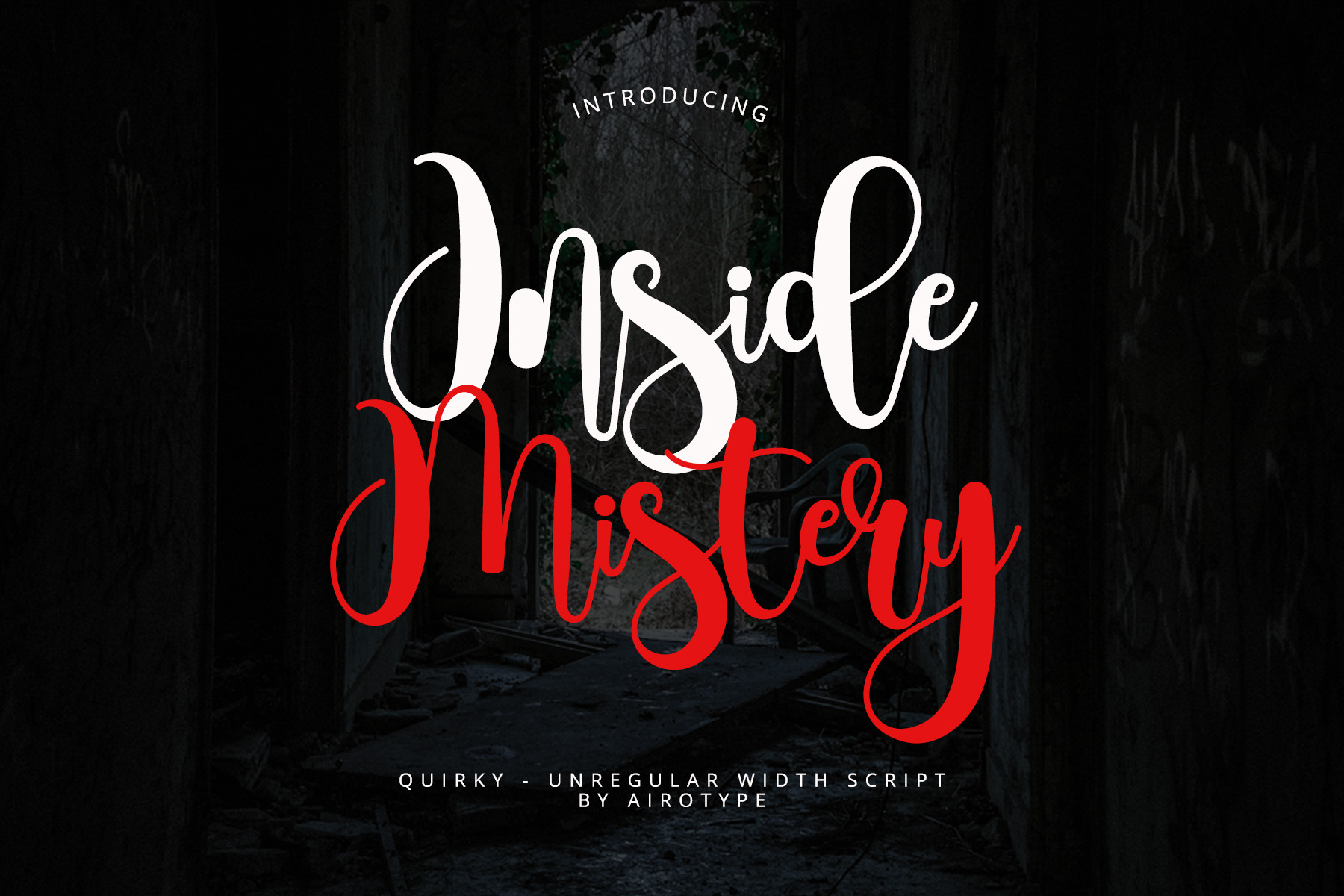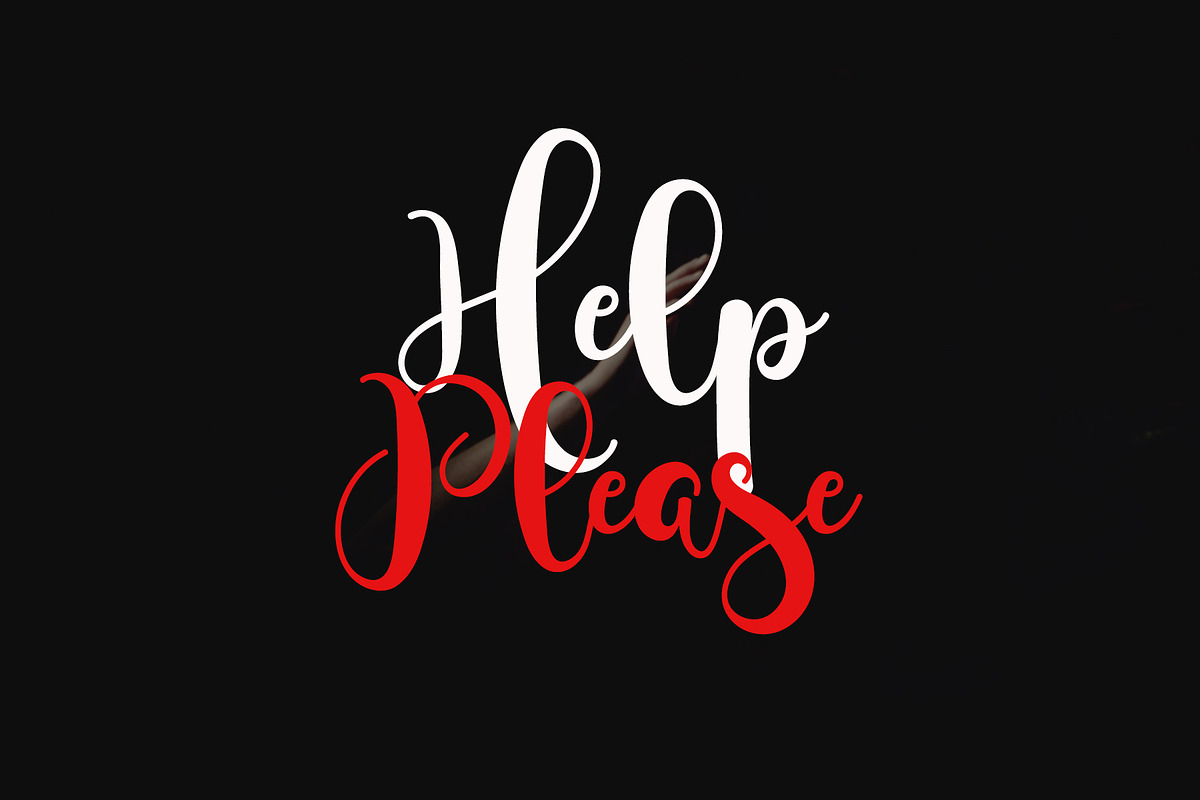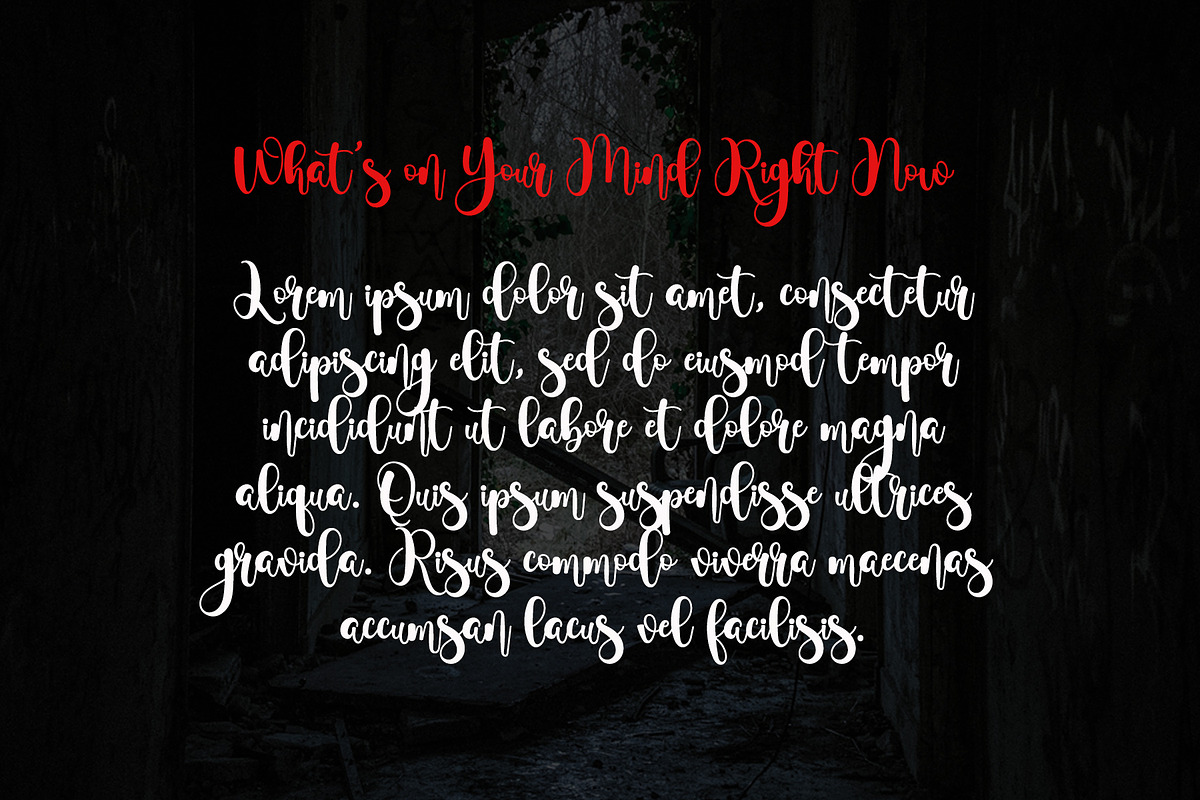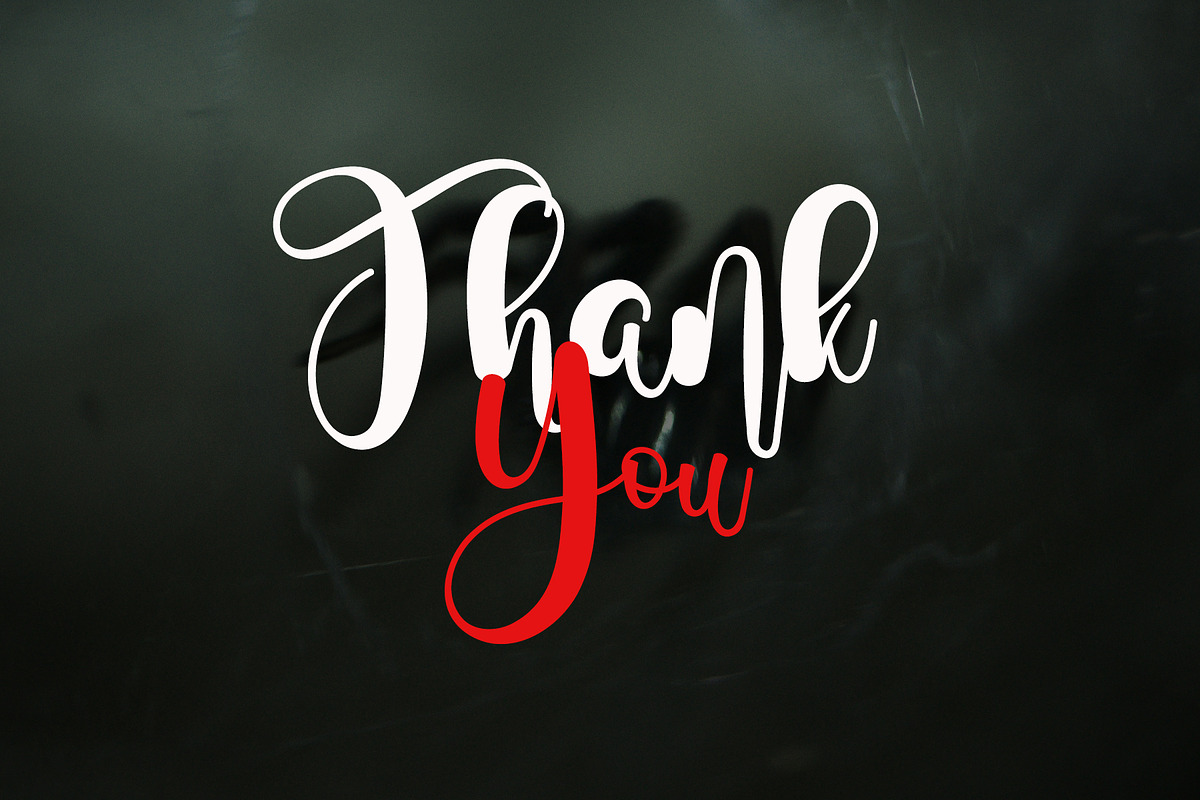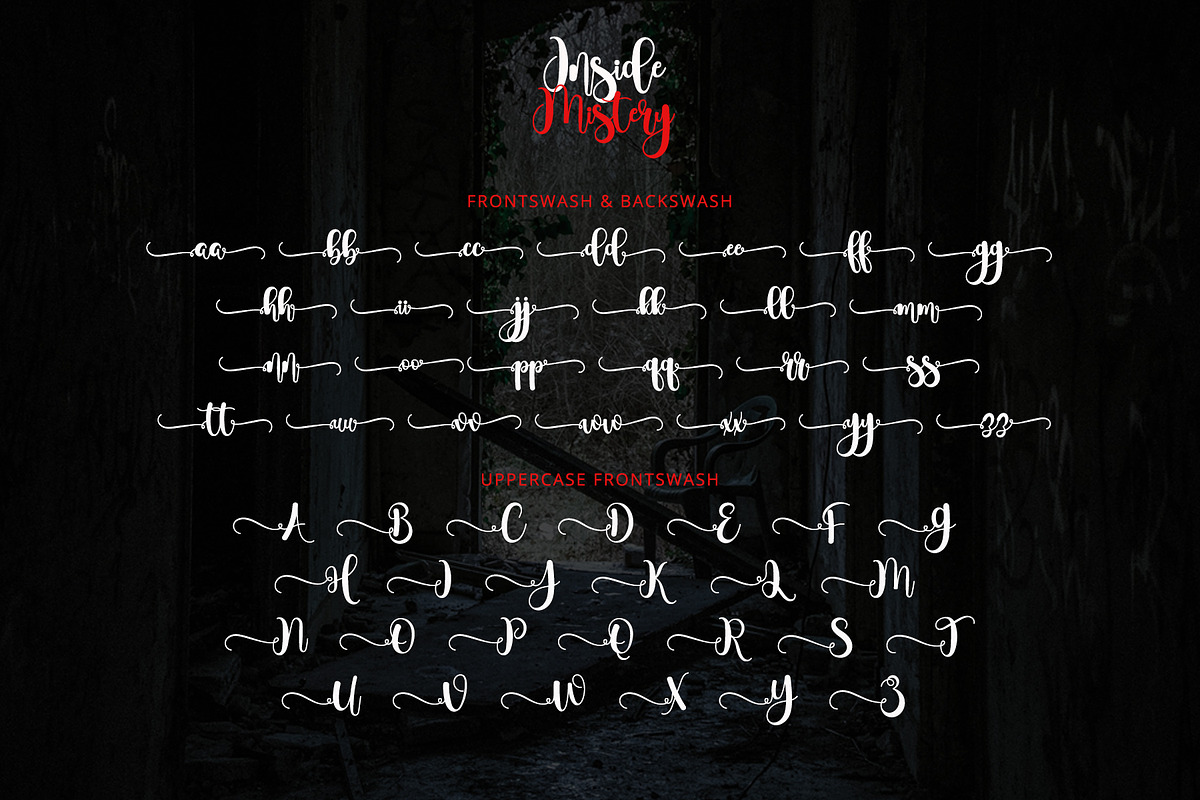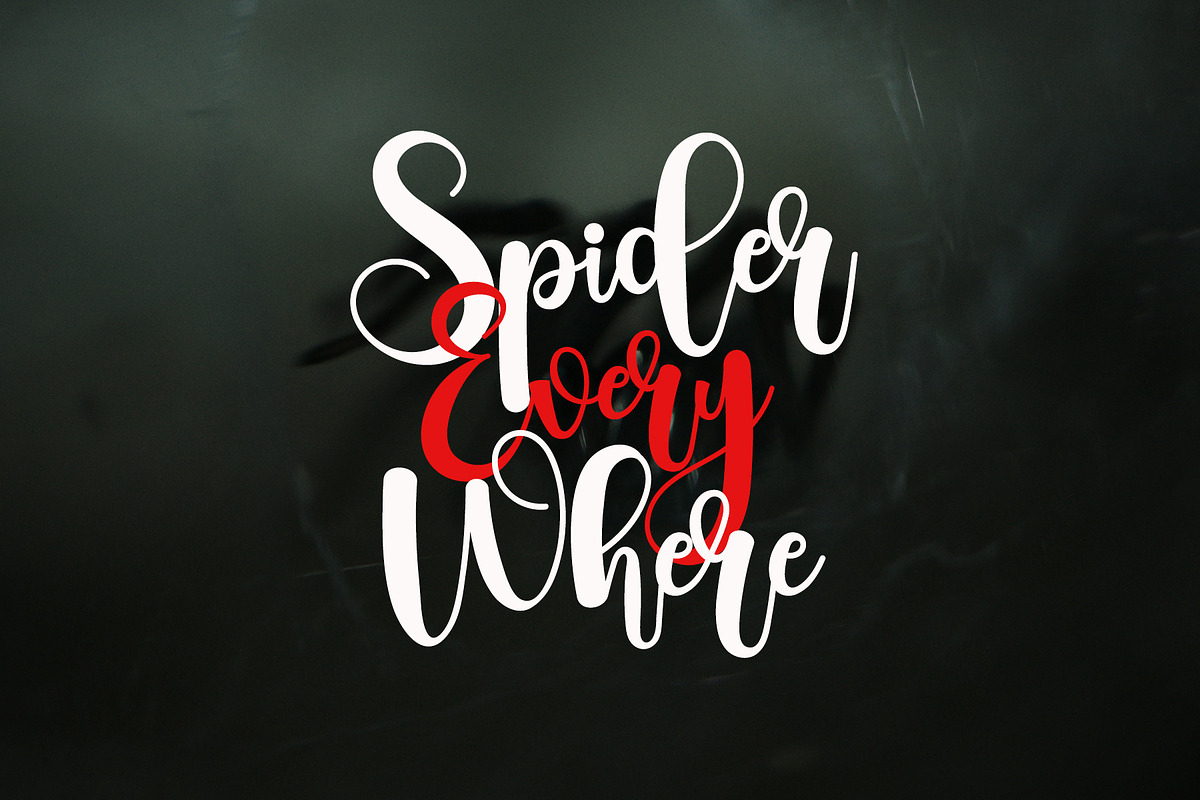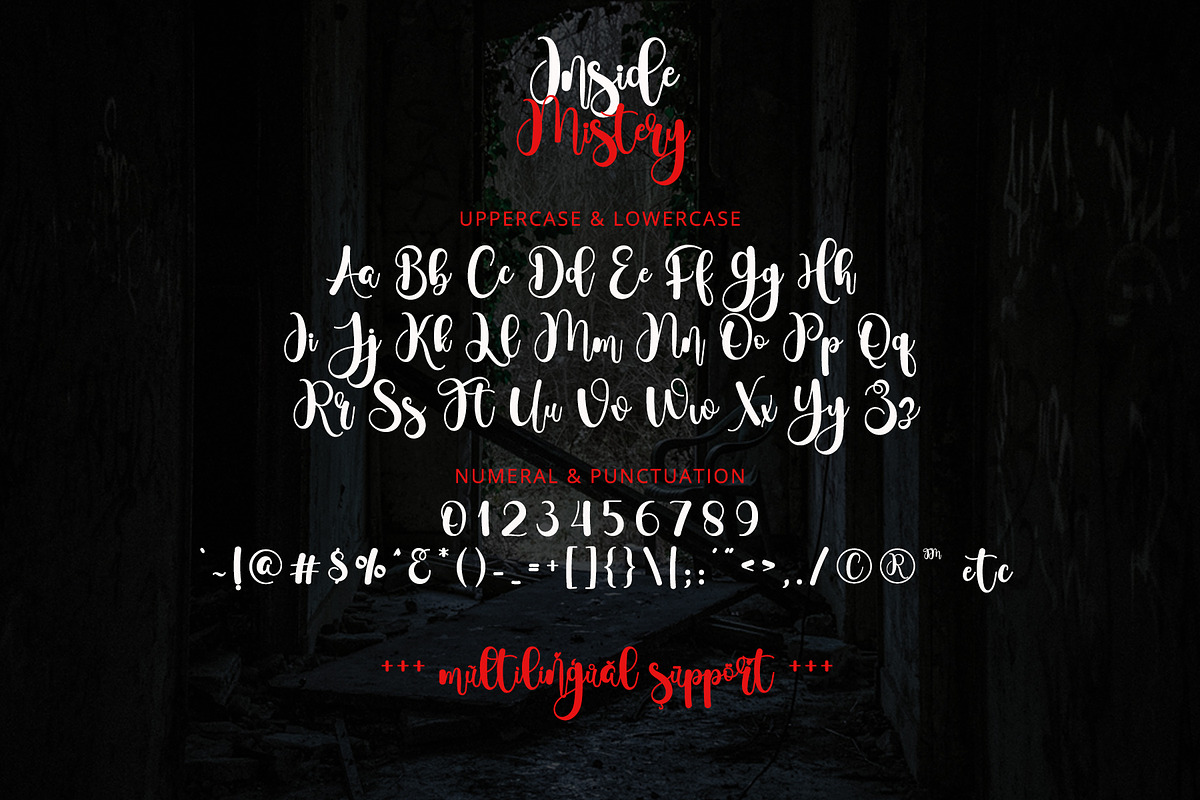
Inside Mistery - Spooky Cursive Font
Inside mistery is unique script. It is flowing, quirky, and authentic. Unregular width each characters made this script looks so unique.
Inside Mistery is such a gorgeous font for wide ranges of designs, such as greeting cards, halloween design, horror design, t-shirt, branding, logo, lettering, crafting, and others.
- Uppercase and Lowercase (includes swash for lowercase)
- Most Multilingual Accent